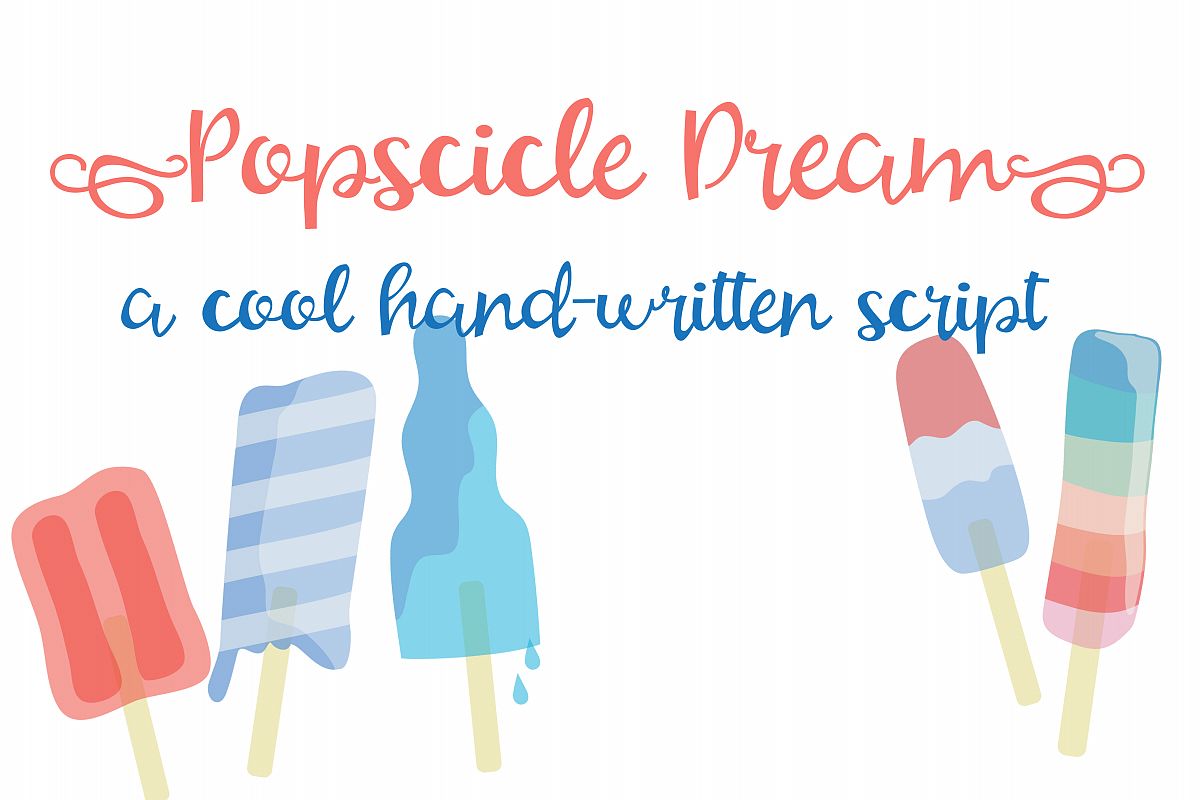
PN Popsicle Dream
This pretty hand-written script has a very casual uppercase and a baseline that has a bit of bounce to it. The curly brackets have been replaced with cute swirly elements.